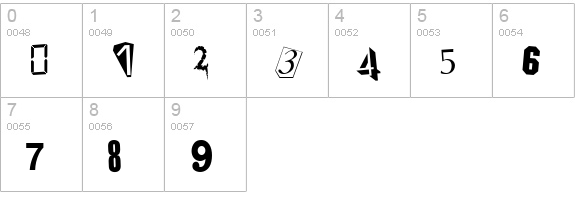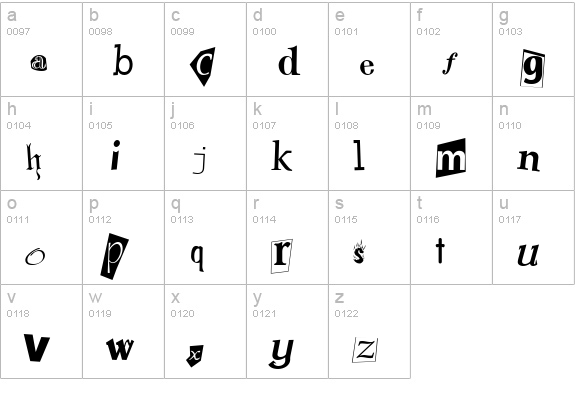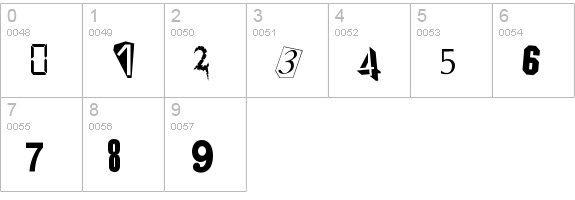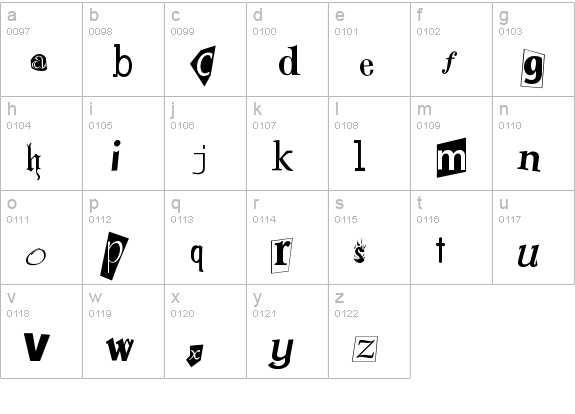
RansomNote Medium Font Details
RansomNote Medium is a balanced, medium-weight variant in the RansomNote typeface family \xE2\x80\x94 well suited to sub-headlines, navigation, and balanced editorial work.
Introducing RansomNote Medium, a captivating and versatile font that effortlessly combines vintage charm with modern appeal. With its unique and eye-catching design, this font is perfect for adding a touch of whimsy and nostalgia to any project. RansomNote Medium features a carefully hand-drawn style that is both playful and sophisticated. Its bold and slightly uneven letterforms give it a distinctive aesthetic that is sure to make a statement. Whether you're designing a poster, creating a logo, or crafting a headline, this font will bring a sense of personality and creativity to your work. But what sets RansomNote Medium apart is not just its stunning design, but also its accessibility. This font is freely available to download at FontsMarket.com, allowing you to easily incorporate it into your projects without any restrictions. Whether you're a professional designer or a DIY enthusiast, this font is here to inspire and empower your creativity. With RansomNote Medium, the possibilities are endless. Its versatility makes it suitable for a wide range of applications, from branding and packaging to web design and social media graphics. Its legibility ensures that your message will be conveyed effectively, while its unique style adds a touch of artistic flair. So why wait? Unlock your creative potential and download RansomNote Medium for free at FontsMarket.com today. Let this captivating font be the perfect companion for your next design adventure, and watch as it breathes life and personality into your projects.